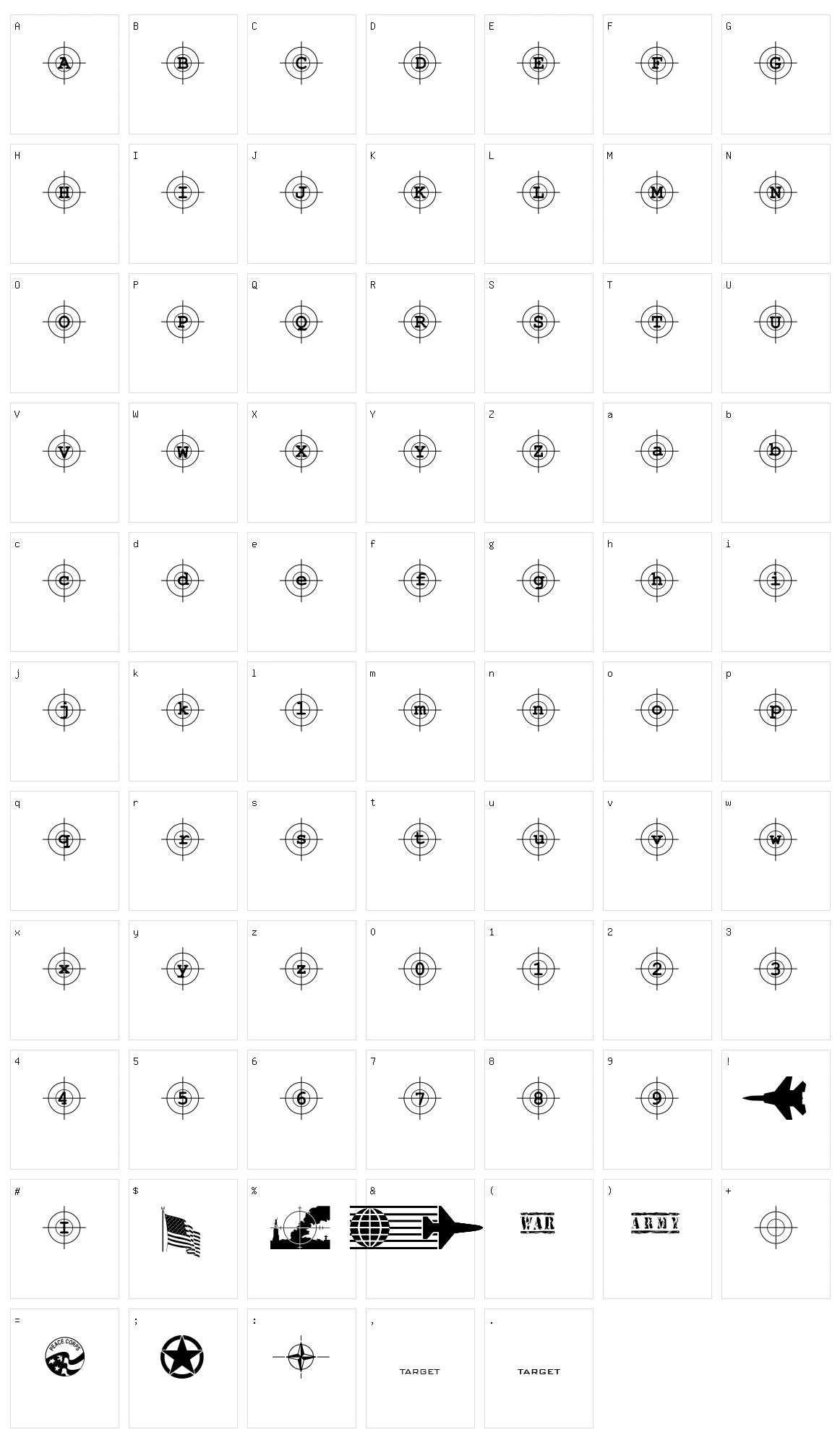
Font name: Kosovo Target BC
Designer: Bart Claeys
First release: 16 April 1999
Characters: a-z, A-Z, 0-9, !$%&()+.,:;=
No punctation marks included.
! -> plane
$ -> American flag
% -> destroy - attack
& -> plane-earth symbol
( -> war stamp
) -> army stamp
+ -> target symbol
. -> word bold: "target"
, -> word normal: "target"
: -> NATO symbol
; -> Yugoslavia symbol
= -> USA peace corps
Kosovo Target BC is a combination of
Courier Bold and a target symbol created
with Coreldraw 8.
The other graphix are all of Coreldraw.